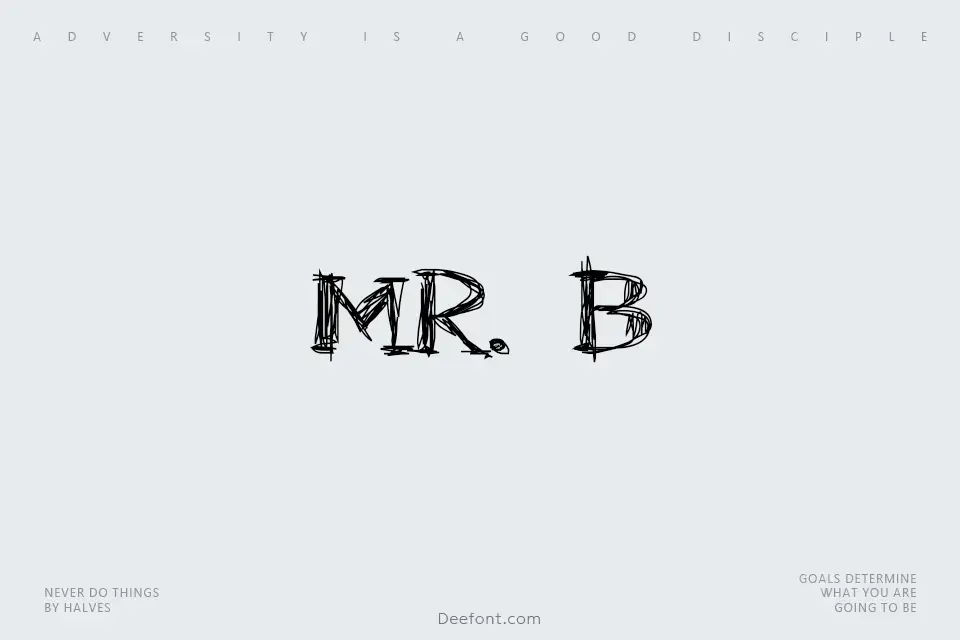
Mr. B Font
Mr. B is a distinctive sketch font designed by Etherbrian that captures the essence of hand-drawn lettering with its loose, informal script style. The font features organic stroke variations and a relaxed personality ideal for posters, invitations, creative signage, and display typography. With its casual handwritten appearance and authentic sketch-like qualities, Mr. B excels in branding applications requiring warmth and artistic appeal. The font’s expressive character makes it particularly suitable for decorative headings, artistic titles, and any design project seeking personality-driven typography that breaks from conventional formal typefaces.